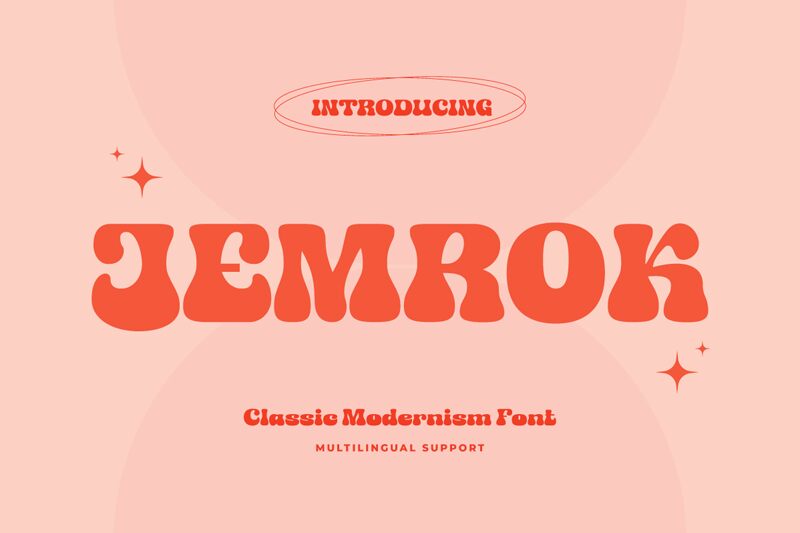
Jemrok by Productype is a bold, groovy display font that commands attention with its dynamic, captivating aesthetic. Featuring a distinct retro-inspired flair, this font's shapely, undulating letterforms evoke a sense of playfulness and energy, making it an eye-catching choice for a variety of design applications.
The font's bold, confident presence lends itself well to attention-grabbing headlines, impactful branding, and visually striking poster designs. Its versatile nature allows it to seamlessly transition between modern and vintage-inspired contexts, making it a valuable asset for designers seeking to create designs with a touch of retro-futuristic charm.